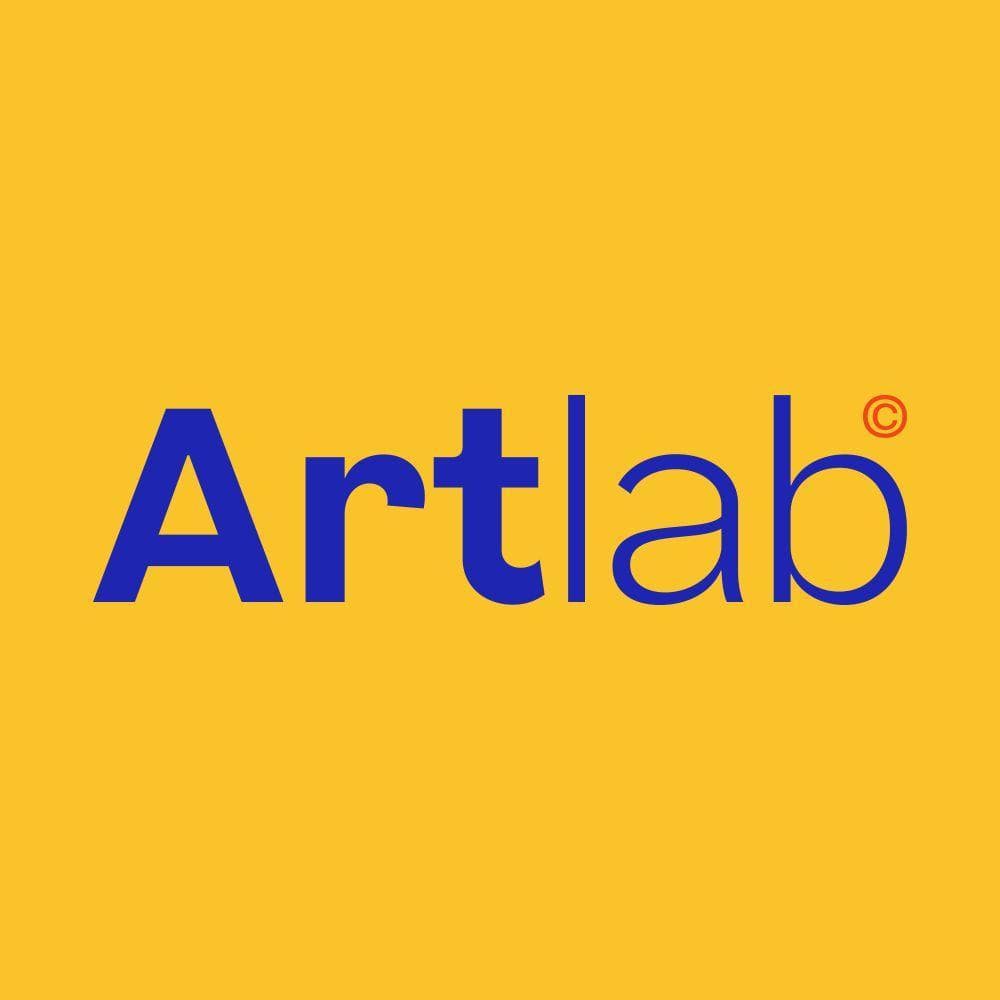
<p>Introducing New Brand Typeface <strong>Artlab</strong> is a modern variable sans-serif typeface known for its clean and visually appealing design. It offers a versatile range of 18 styles, making it suitable for a variety of design applications.<br><strong>The styles include</strong><br><em>Thin</em><br><em>Thin Italic</em><br><em>ExtraLight</em><br><em>ExtraLight Italic</em><br><em>Light</em><br><em>Light Italic</em><br><em>Regular</em><br><em>Regular Italic</em><br><em>Medium</em><br><em>Medium Italic</em><br><em>SemiBold</em><br><em>SemiBold Italic</em><br><em>Bold</em><br><em>Bold Italic</em><br><em>Black</em><br><em>Black Italic</em><br>This flexibility allows Artlab to adapt seamlessly to both minimalist and bold design aesthetics, making it an excellent choice for branding, editorial design, or digital interfaces. Its clean structure and readability ensure it remains a professional.</p>